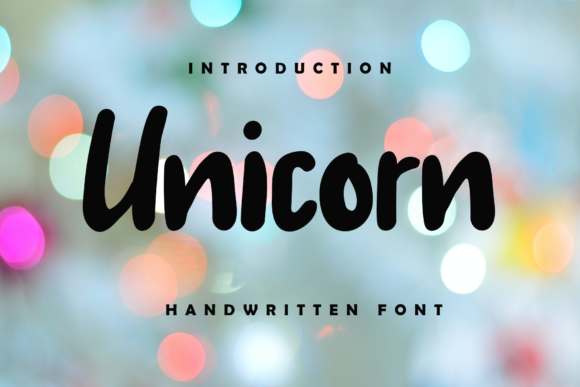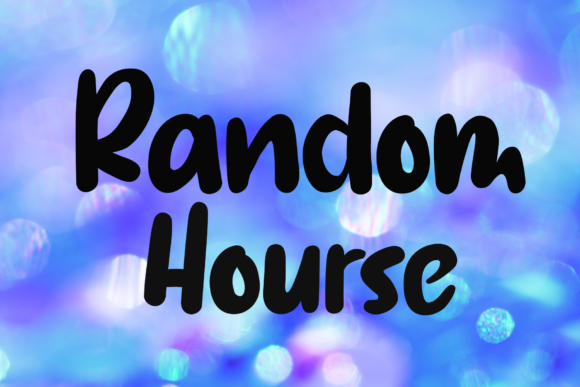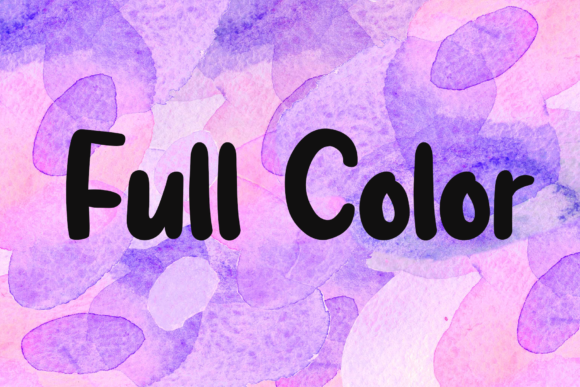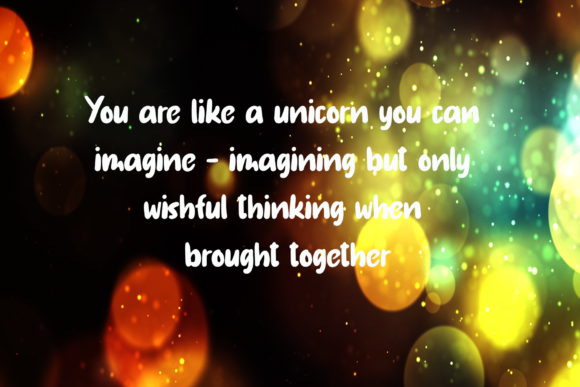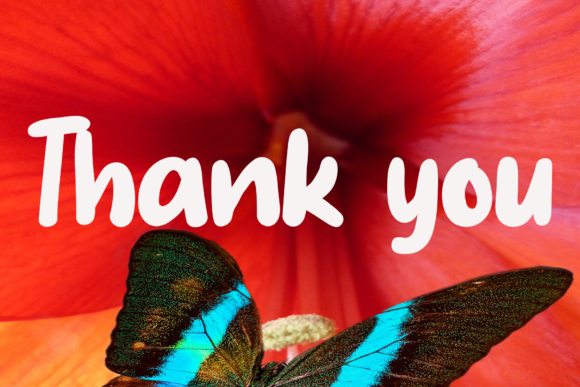
Unicorn Font
About Unicorn Font
Unicorn is a thick lettered and simple font. It feels cute and versatile. This font looks stunning on shirts or t-shirts, thank you cards, quotes, greeting cards, logos, business cards, children’s books, displays and any other design that requires a handwritten touch.